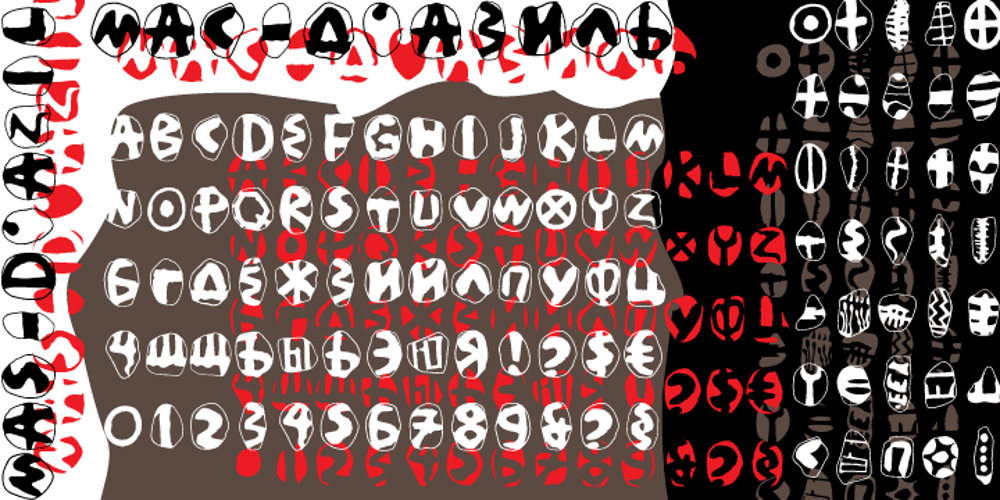
Mas dAsil
Mas dAsil font
Mas dAsil Font Family was designed by Dmitry Kirsanov and published by ParaType. Mas dAsil contains 2 styles and family package options. The typeface was designed for ParaType in 2002 by Dmitry Kirsanov. Based on the Mesolithic images on stones were discovered in a prehistoric cave of Mas d’Asil, France. There is a great number of hypotheses explaining the function of the mysterious stones. They have been considered as vessels of souls, computation tools, fortune-telling and magic symbols, relics of prehistoric writing system.